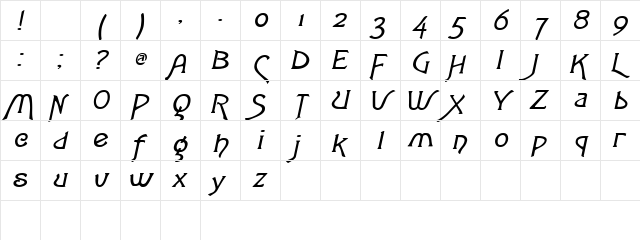
LoveLettersExtended Italic
Design Context for LoveLettersExtended Typeface
LoveLettersExtended offers clean, dependable letterforms without strong stylistic allegiance, making it a practical choice for designers who need flexibility. The dynamic lean of this cut emphasises speed and emphasis in any layout.